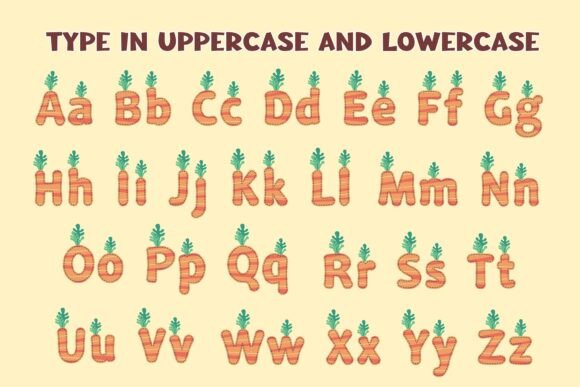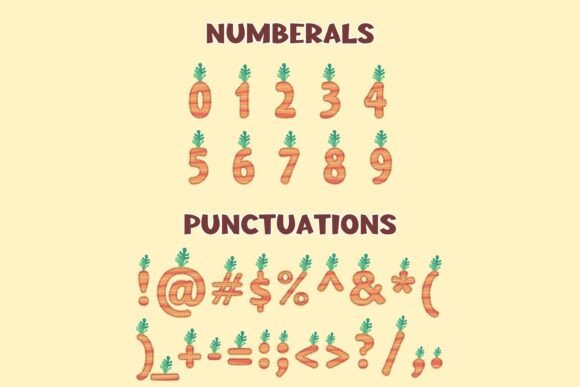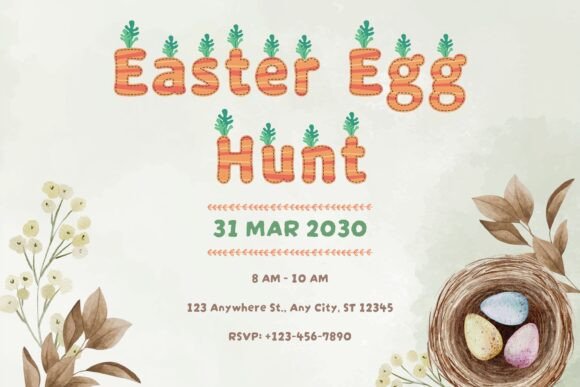
Easter Carrots Font: Adding a Pop of Color to Your Easter Designs
Are you looking for a font that can add a touch of whimsy and fun to your Easter-themed designs? Look no further than Easter Carrots, a vibrant and playful color font that’s perfect for bringing your creative projects to life. In this article, we’ll introduce you to Easter Carrots, a unique and captivating font that’s sure to become a staple in your design toolkit.
What is Easter Carrots Font?
Easter Carrots is a color font, specifically an Opentype-SVG (OTF) file, that combines the classic appeal of a traditional font with the modern flair of color. This innovative font is designed to add a burst of color and energy to your designs, making it perfect for Easter-themed projects, such as t-shirt designs, digital imprints, craft creations, decorative cards, and more.
Key Features of Easter Carrots Font
- Vibrant and Playful Design: Easter Carrots boasts a lively and enchanting design that’s sure to capture the spirit of Easter.
- Wide Range of Applications: From t-shirt designs and digital imprints to craft creations and decorative cards, Easter Carrots is versatile enough to be used in a variety of projects.
Benefits of Using Easter Carrots Font
So, why choose Easter Carrots for your Easter designs? Here are just a few benefits of using this exciting font:
- Adds a Touch of Whimsy: Easter Carrots brings a playful and imaginative touch to your designs, making them stand out from the crowd.
- Increases Visual Appeal: The vibrant colors and unique design of Easter Carrots are sure to grab attention and add visual interest to your projects.
- Versatile and Adaptable: Whether you’re creating digital designs or crafting physical projects, Easter Carrots can be used in a variety of applications.
Easter Carrots is a unique and captivating color font that’s perfect for adding a touch of whimsy and fun to your Easter-themed designs. With its vibrant and playful design, wide range of applications, and ease of use, Easter Carrots is sure to become a staple in your design toolkit. So why wait? Download Easter Carrots today and start creating stunning Easter designs that will leave a lasting impression!